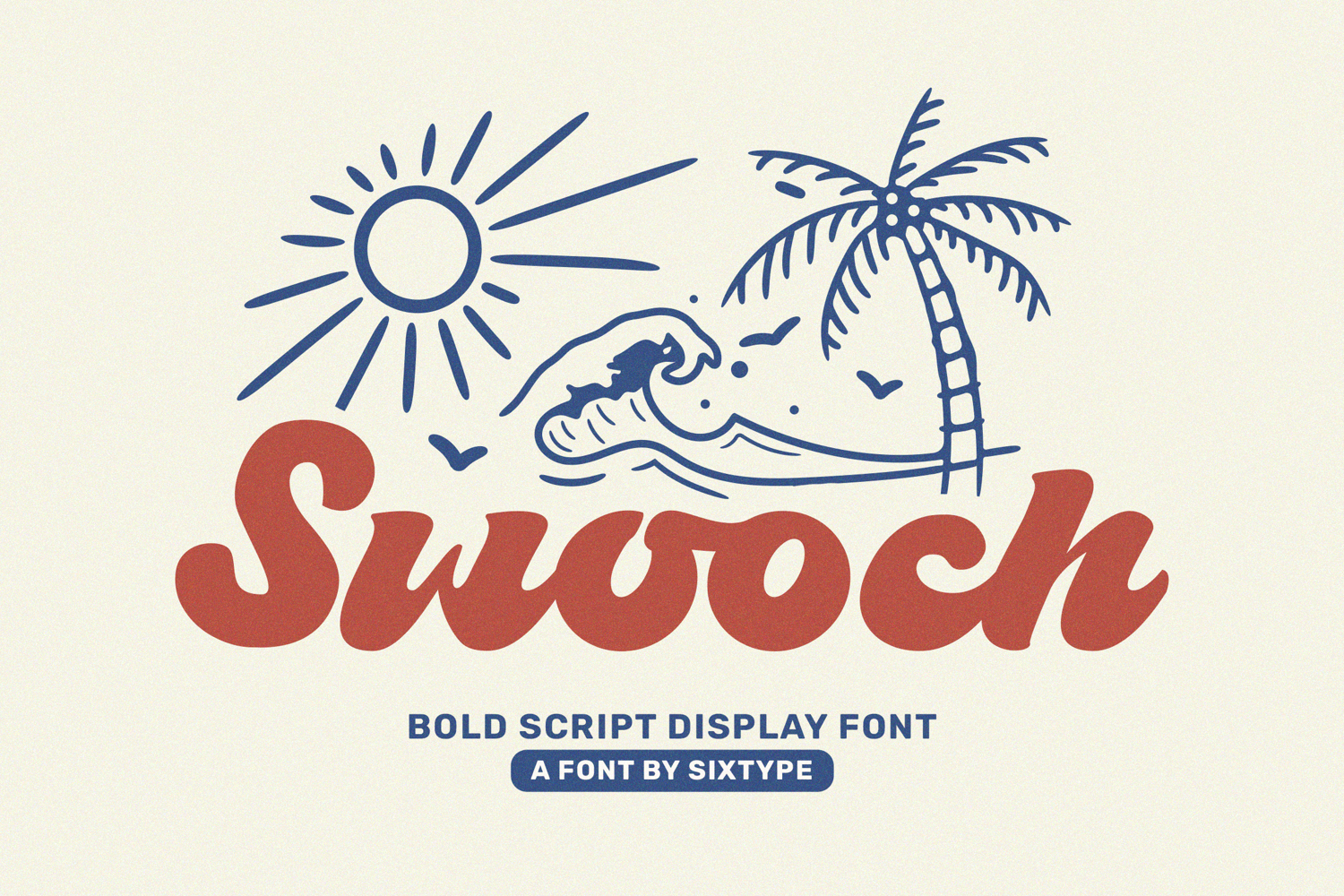
Swoch Bold Retro Script
Swooch is a bold retro script typeface inspired by vintage signage, classic diner lettering, and nostalgic 70s typography. With its thick flowing strokes, smooth curves, and energetic swashes, this font exudes a playful yet confident personality that captures attention. The handcrafted script style adds warmth, rhythm, and vintage charm, making it ideal for a variety of applications including logos, packaging, apparel, café branding, posters, social media graphics, and retro-inspired merchandise. Swooch seamlessly combines expressive lettering with strong readability, offering designers a versatile display script that feels both timeless and lively, perfect for enhancing branding and creative projects.